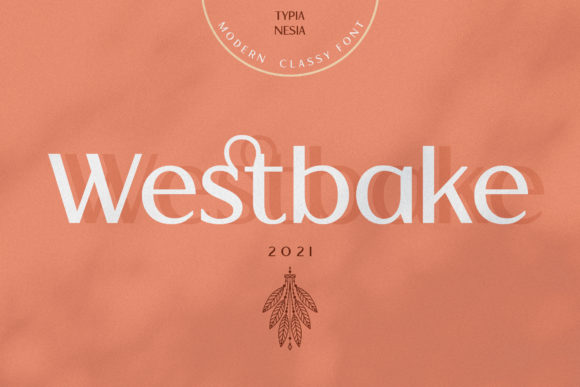
Indulge in the allure of Westbake Font, a captivating sans serif masterpiece crafted by Typia Nesia. Step into a realm of boundless creativity where this font dances across your screens, inviting you to transform your designs into works of art.
Westbake's essence lies in its effortless simplicity and elegant charm. Its clean lines and graceful curves evoke a sense of timeless sophistication, making it the perfect choice for discerning designers seeking to leave an unforgettable mark.
Imagine the impact of your calling cards adorned with the distinctive strokes of Westbake. Each letter, imbued with a subtle elegance, becomes a testament to your discerning taste and professionalism. Its readability ensures your message reaches its intended audience with clarity and impact.
Beyond calling cards, Westbake Font shines as a versatile companion for a myriad of design endeavors. Its understated beauty complements a wide range of styles, from classic to contemporary, effortlessly elevating your projects to new heights of sophistication.
Westbake is not merely a font; it's an invitation to embark on a creative journey where your imagination takes center stage. Let its graceful lines guide your designs, transforming them into captivating expressions of your unique style.
Join the ranks of discerning designers who have embraced the allure of Westbake Font. Experience the joy of creating designs that captivate and inspire, leaving an enduring impression on all who behold them.